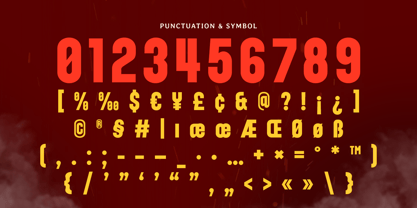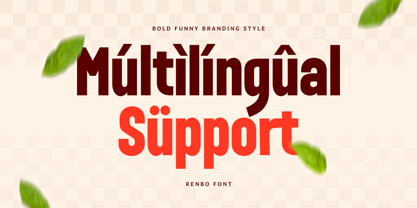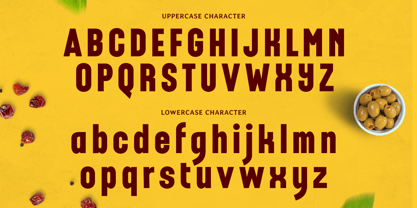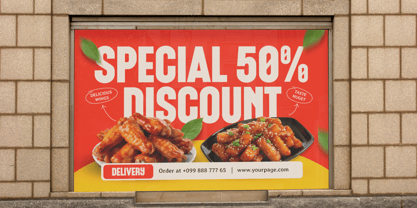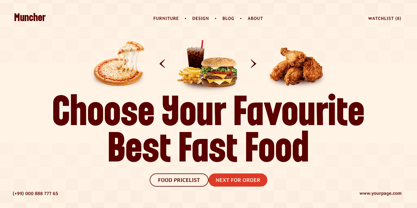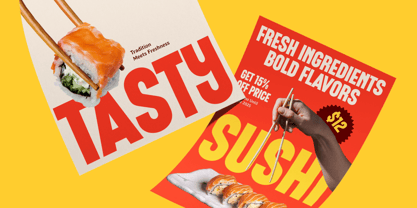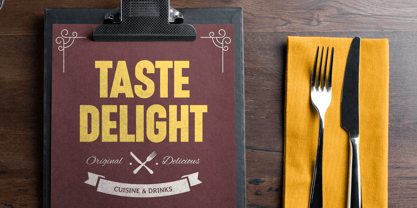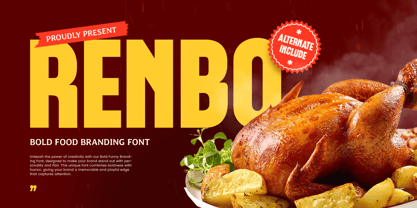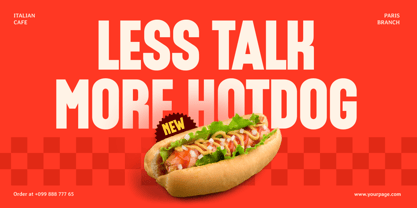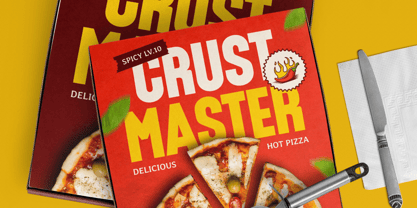
Renbo is a bold food branding font designed to bring fun and appetite appeal to your creative projects. Its chunky forms and rounded corners deliver a friendly, modern aesthetic that’s ideal for food-related designs—from fast food chains and snack packaging to colorful menu layouts and restaurant logos.
Crafted with simplicity and flavor in mind, Renbo’s strong shapes make it highly readable and instantly recognizable, whether displayed on shelves or digital platforms.
Give your brand a taste of bold personality with Renbo, the perfect font for food, fun, and flavor.
Renbo – Bold Food Branding Font Features
Playful and bold type style
Great for food packaging and brand identity
Punctuation, numbers, and symbols included
Uppercase and lowercase letters
OpenType features included
Multilingual support for Afrikaans, Albanian, Asu, Basque, Bemba, Bena, Breton, Chiga, Cornish, Dutch, English, Estonian, Filipino, Finnish, Friulian, Galician, German, Gusii, Indonesian, Irish, Italian, Kabuverdianu, Kalenjin, Kinyarwanda, Luo, Luxembourgish, Luyia, Machame, Makhuwa-Meetto, Makonde, Malagasy, Manx, Morisyen, North Ndebele, Nyankole, Oromo, Portuguese, Quechua, Romansh, Rombo, Rundi, Rwa, Samburu, Sango, Sangu, Scottish Gaelic, Sena, Shambala, Shona, Soga, Somali, Spanish, Swahili, Swedish, Swiss, and more.
Renbo